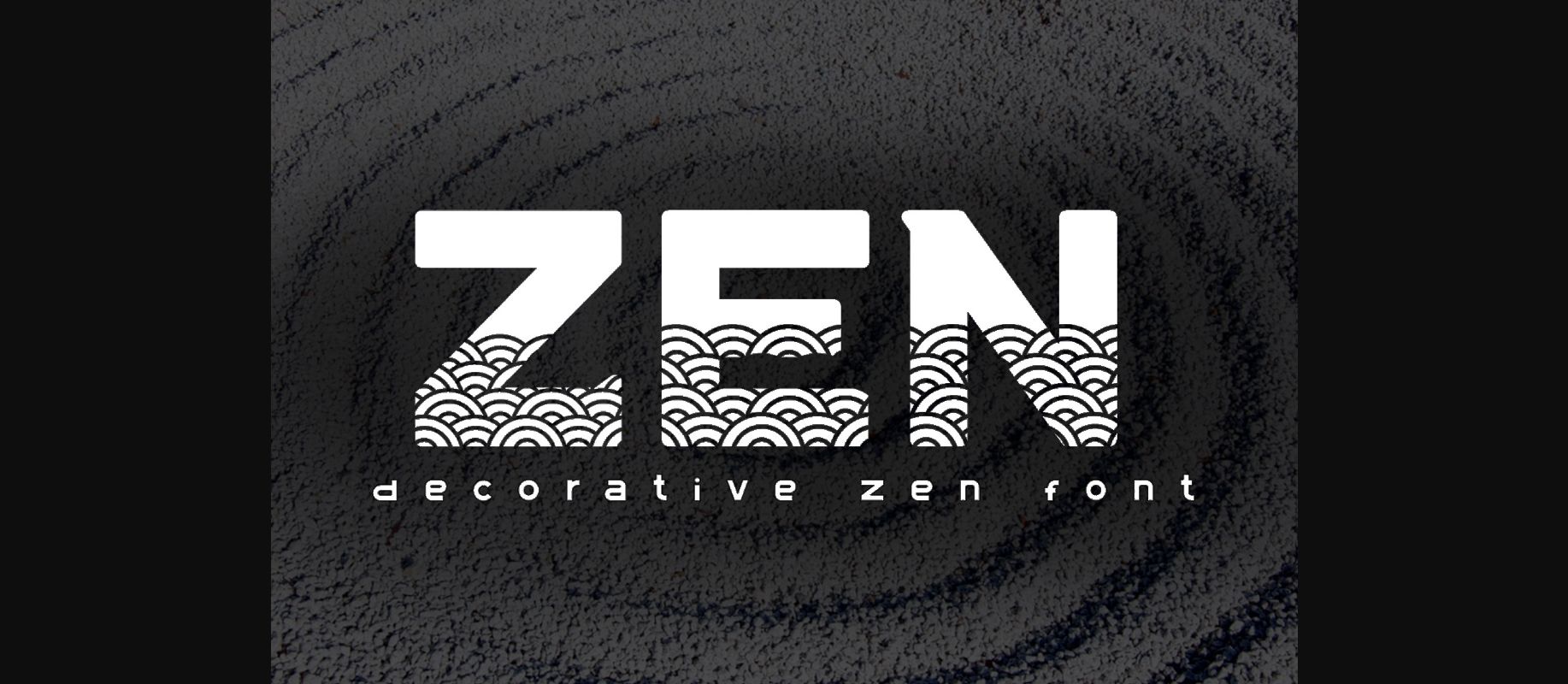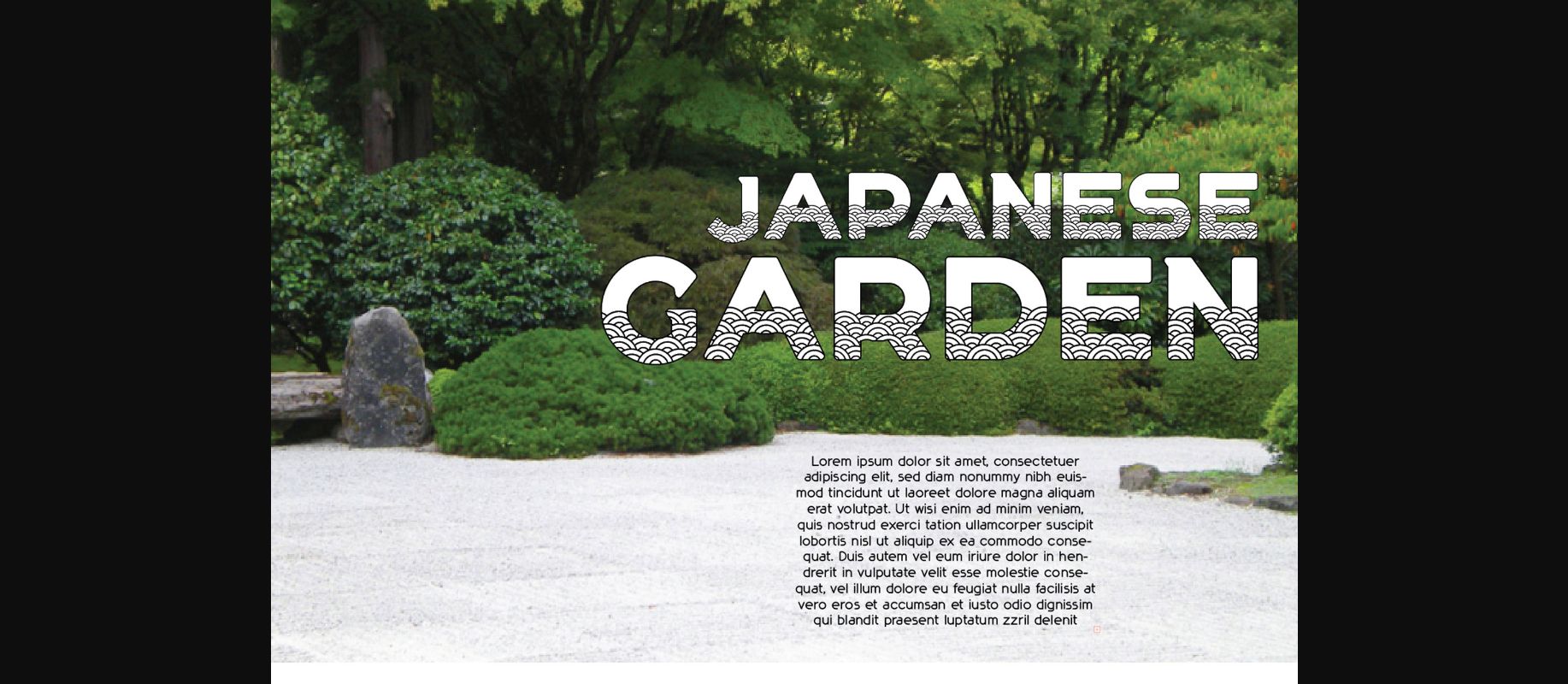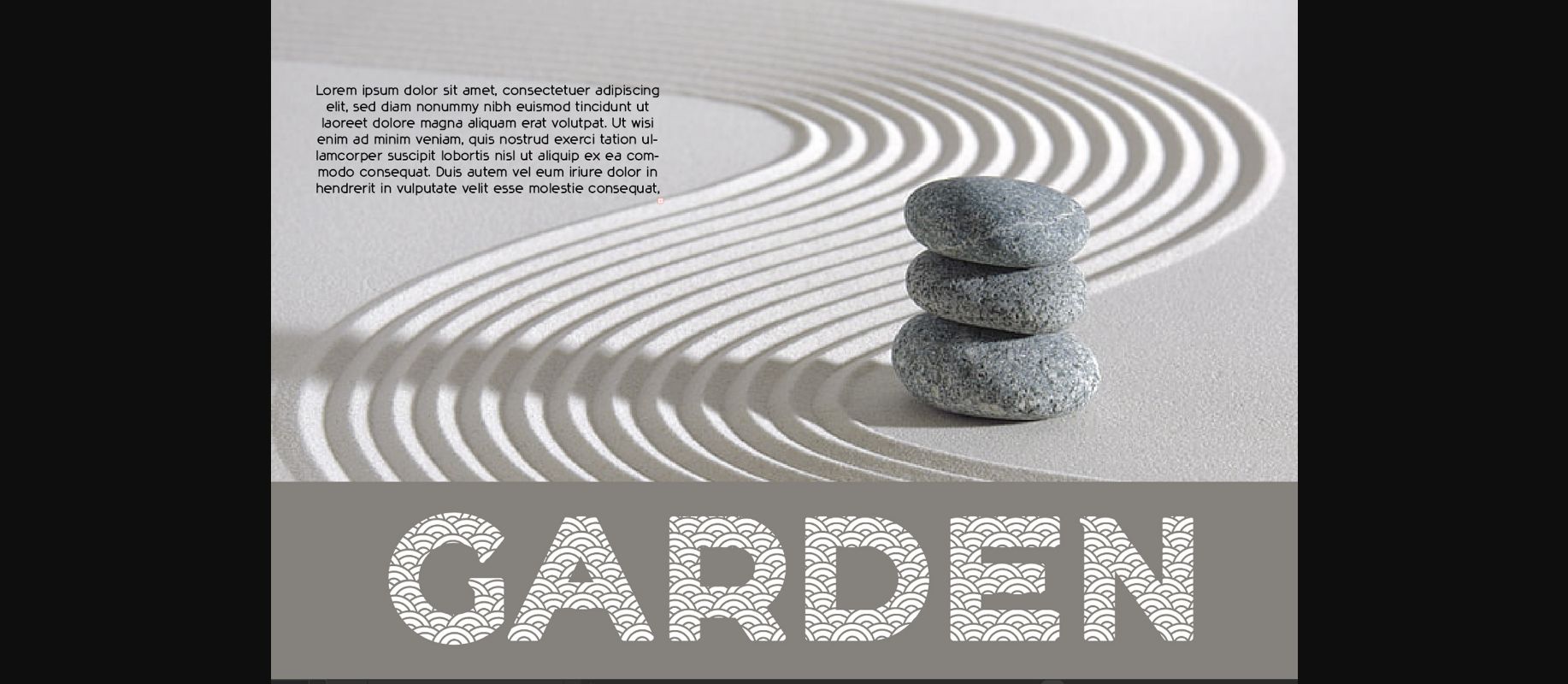
About Zen Font
Zen is a cool and unique decorative font. Incredibly versatile, this font fits a wide pool of designs, elevating them to the highest levels. Add this font to your favorite creative ideas and notice how it makes them come alive!